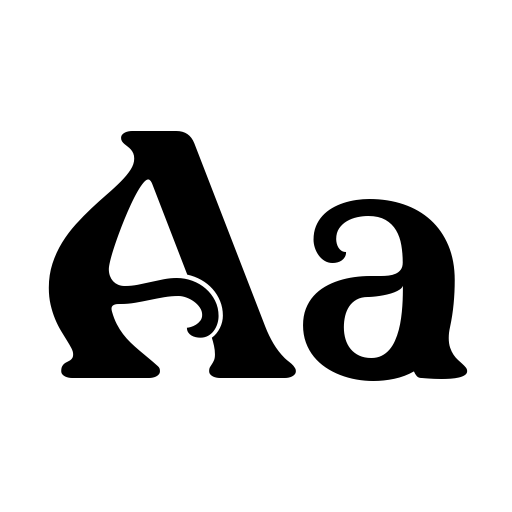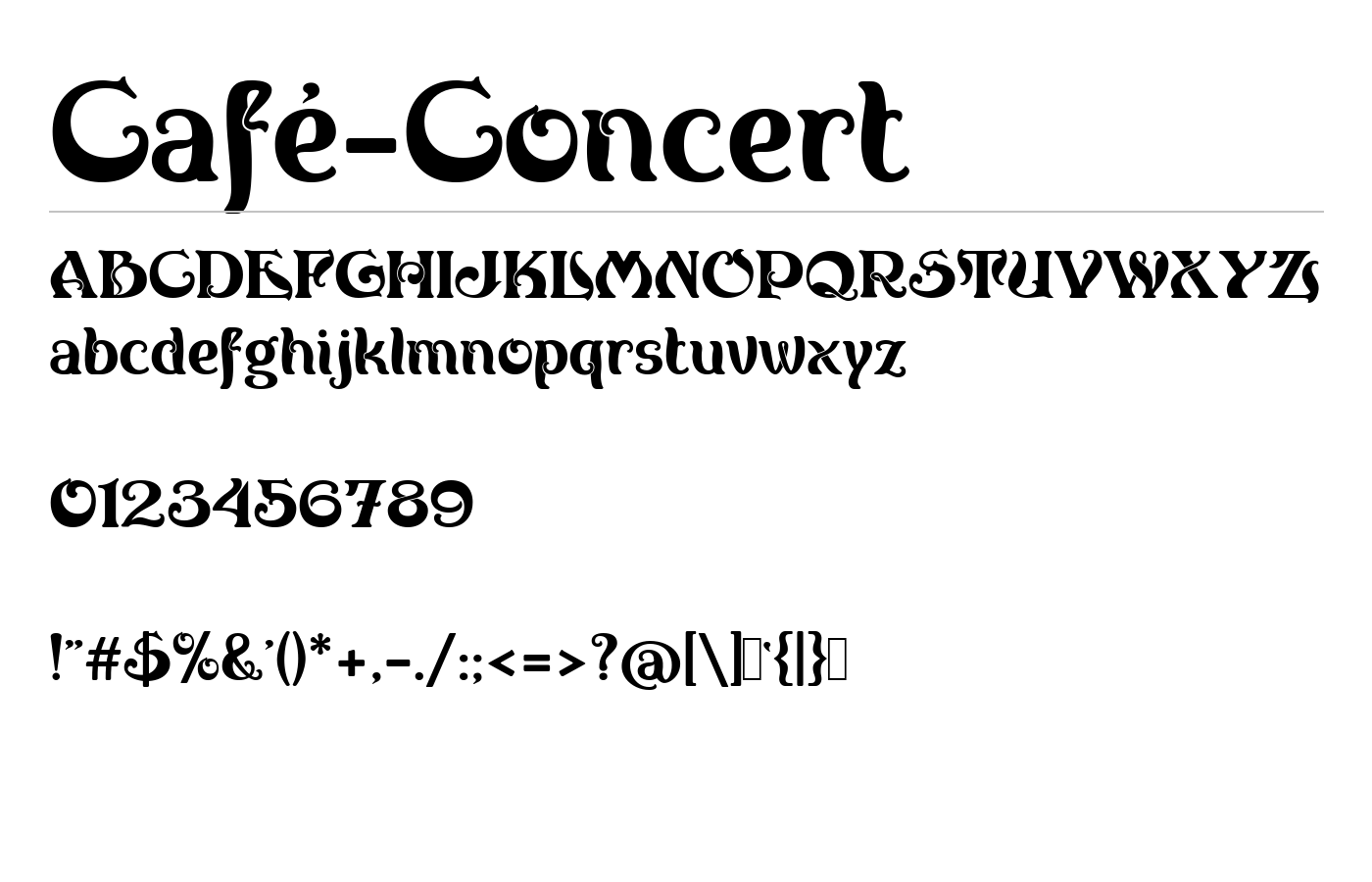
Café-Concert is a decorative serif font with a unique, playful character and high contrast between thick and thin strokes. Its bold, whimsical letterforms feature artistic curves and flourishes, giving it a vintage yet lively feel that works perfectly for creative branding, posters, and headlines. This font captures a sense of charm and individuality, making it ideal for designs that want to stand out with personality and flair.
Café-Concert Font
About Café-Concert Font
| Font family | Café-Concert Font |
| Designer | Yves Michel |